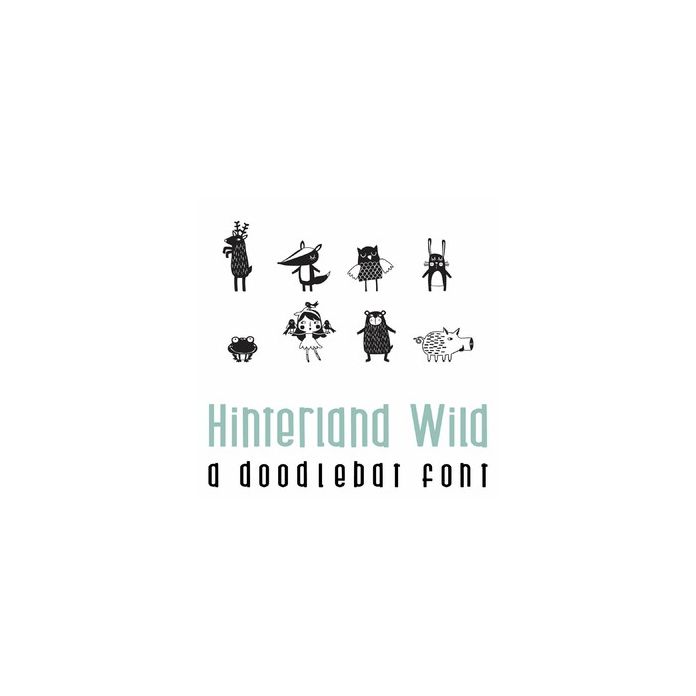
This fun doodlebat font features 26 forest animal imagery and big mouth animal cards. Perfect for cards, crafts, gifts, decor, scrap book pages, planner stickers and more!